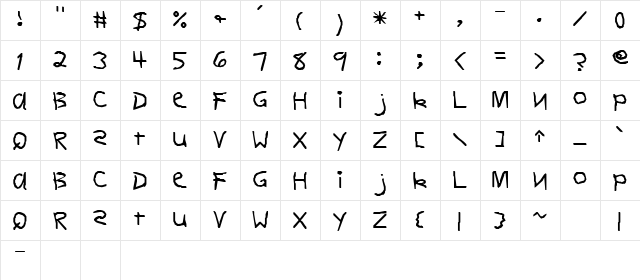
DELVIN Regular
Design Context for DELVIN Typeface
DELVIN is a composed and adaptable typeface that performs quietly and consistently across a wide range of design contexts.